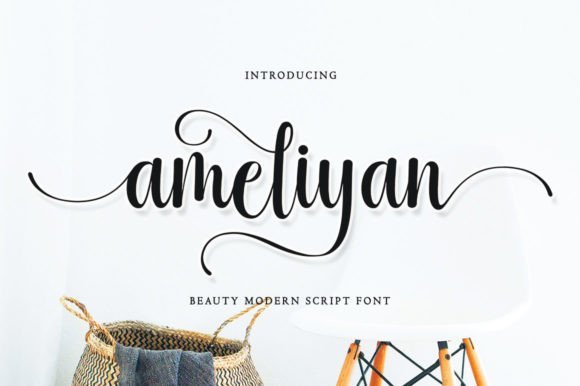
The Perfect Script for Love and Creativity
There’s nothing quite like the feeling of holding a handwritten letter from a loved one, the gentle curves and flourishes dancing across the page. It’s a moment that sparks the imagination and sets the heart aflutter. And what if you could capture that same essence in your design work?
Enter the Ameliyan Font, a sweet and romantic handwritten script font designed to add a touch of whimsy and personality to your projects. Whether you’re creating logos, labels, or social media posts, this charming font is the perfect choice for conveying emotion and warmth. With its versatility and charm, the Ameliyan Font is a valuable addition to any designer’s toolkit, helping to bring a sense of love and creativity to every project.
Ameliyan Font Key Features
- Font Size: 1,044 glyphs, covering a wide range of languages and characters.
- Unique Characteristics: Elegant and modern design, with subtle flourishes and ornate details, making it perfect for luxury and high-end branding.
- Language Support: Supports multiple languages, including Latin, Cyrillic, and Greek scripts, as well as various Unicode characters.
- Font Style: Available in Regular, Italic, Bold, and Bold Italic styles, offering flexibility for different design applications.
Ameliyan Font Review
Overall, I think the Ameliyan font has some great qualities, but also a few areas where it falls short. Let’s dive in!
- The Ameliyan font has a beautiful, elegant aesthetic that’s perfect for high-end brands or luxury products.
- The font’s unique letterforms and subtle flourishes add a touch of sophistication and refinement.
- The font is highly legible, even at smaller font sizes, making it a great choice for body text.
- The Ameliyan font may be too ornate for some brands, making it harder to read in certain contexts.
- The font’s unique letterforms can be a bit challenging to pair with other fonts, which may limit its versatility.
- The font is not ideal for use in digital media, such as screens or mobile devices, where legibility is key.
In conclusion, I think the Ameliyan font is a beautiful choice for the right brand or project. While it may have some limitations, its unique aesthetic and high legibility make it a great option for designers looking to add some sophistication to their designs.
Ameliyan Font: A Practical Application Guide
For a more polished look, pair Ameliyan with a simple background and bold colors.
For a unique look, experiment with layer blending modes and texture overlays.
For a professional look, pair Ameliyan with a clean layout and minimal graphics.
The Ameliyan Font is perfect for:
- Home decor and furniture design
- Quirky and playful marketing materials
Ameliyan Font Creative Projects
Create a unique and eye-catching wedding invitation using the Ameliyan Font. This script font is perfect for adding a touch of elegance and romance to your invitation design.